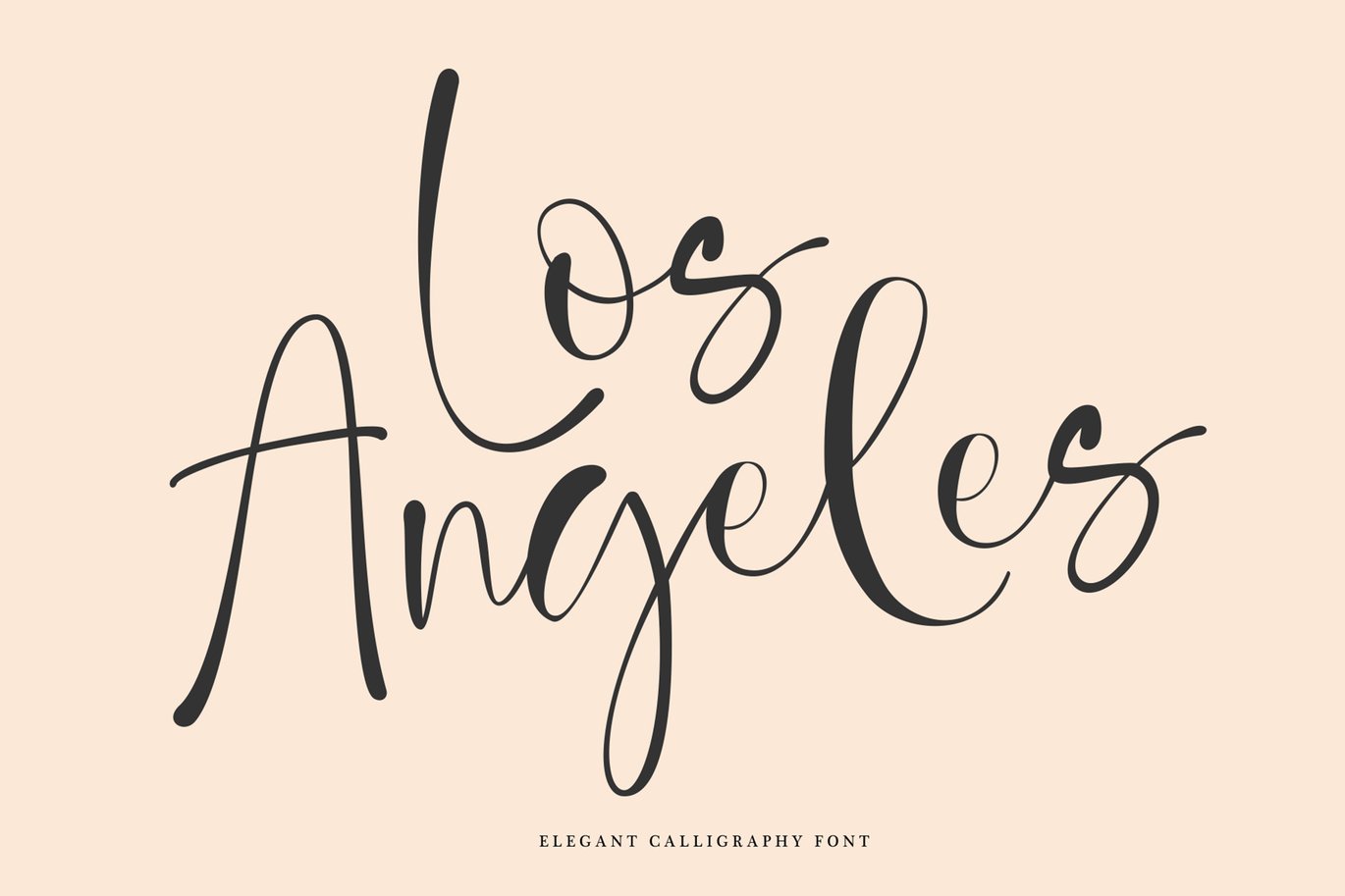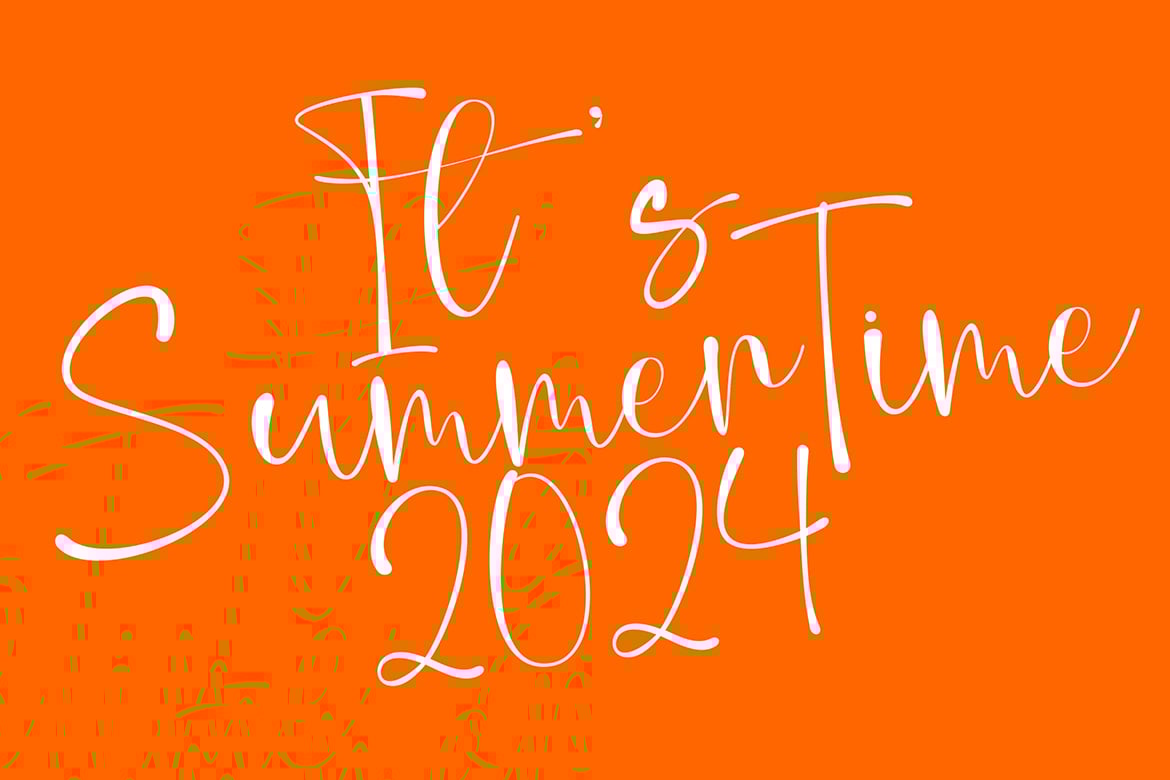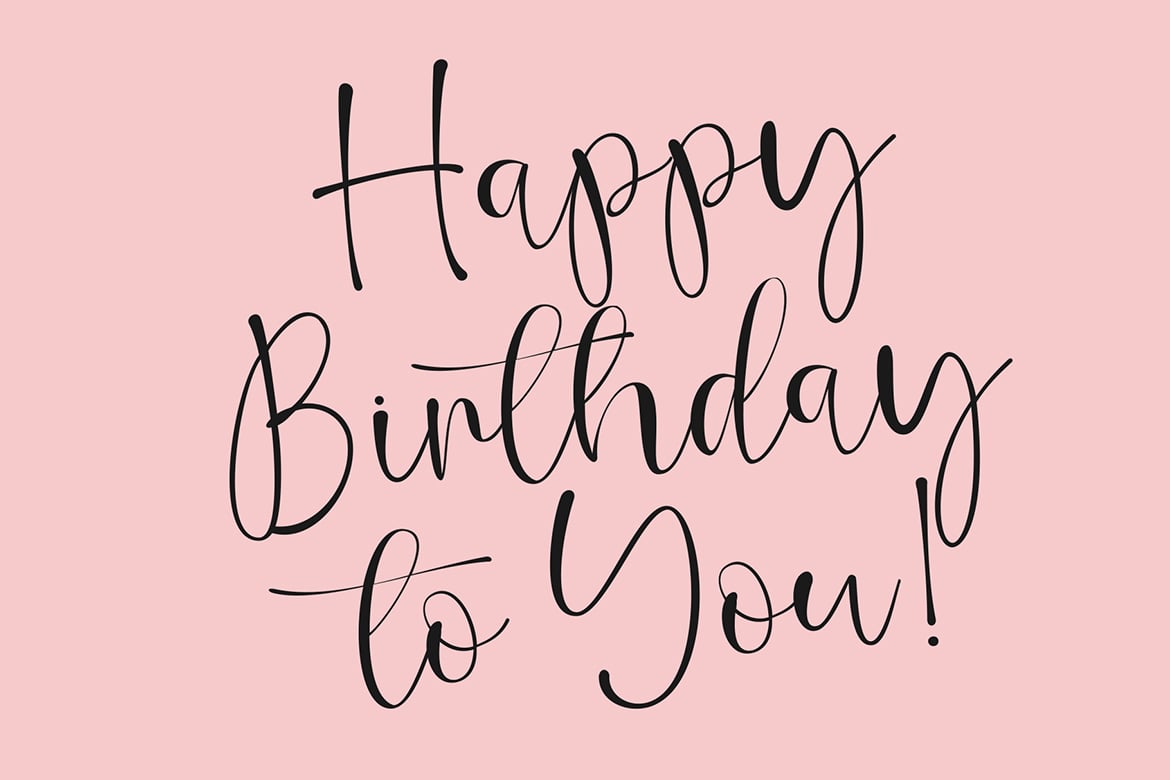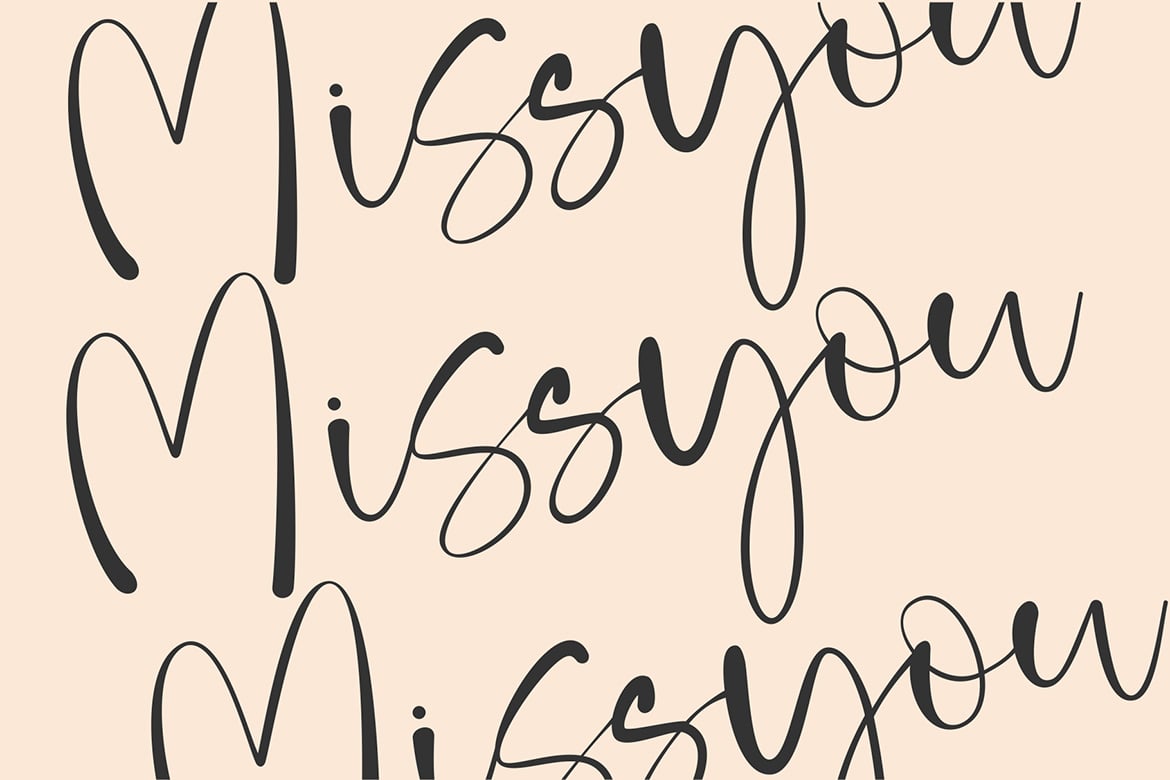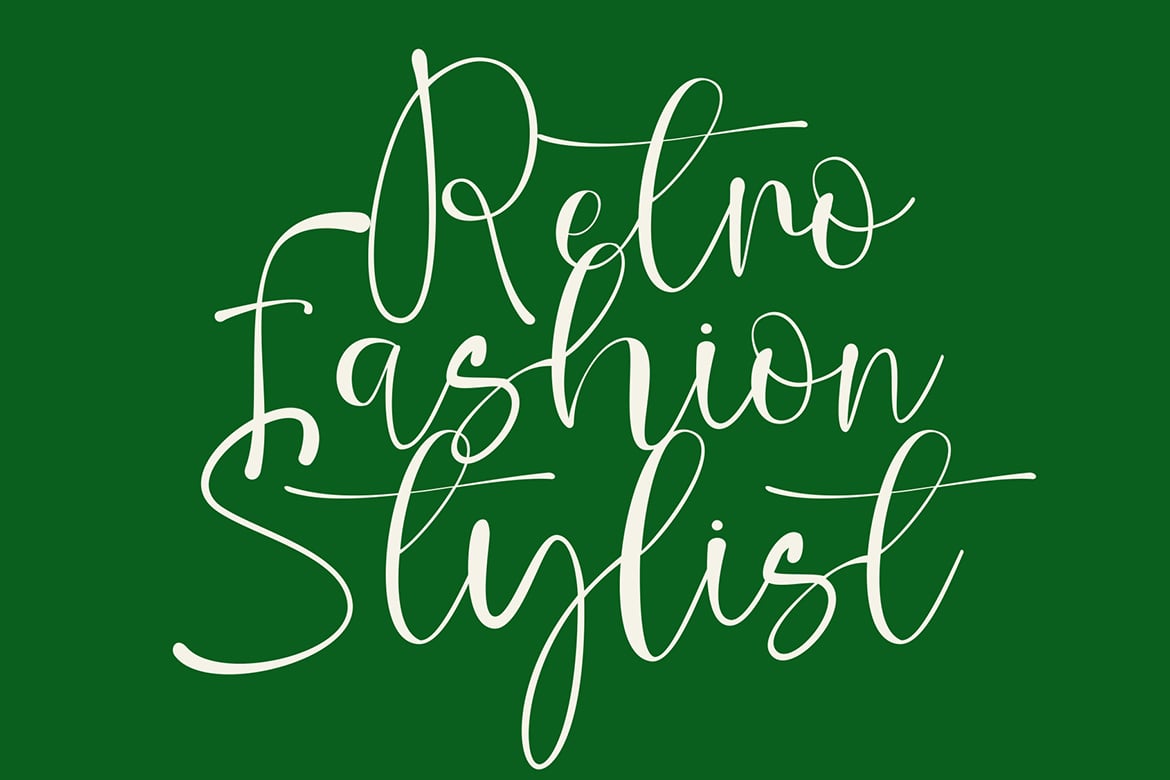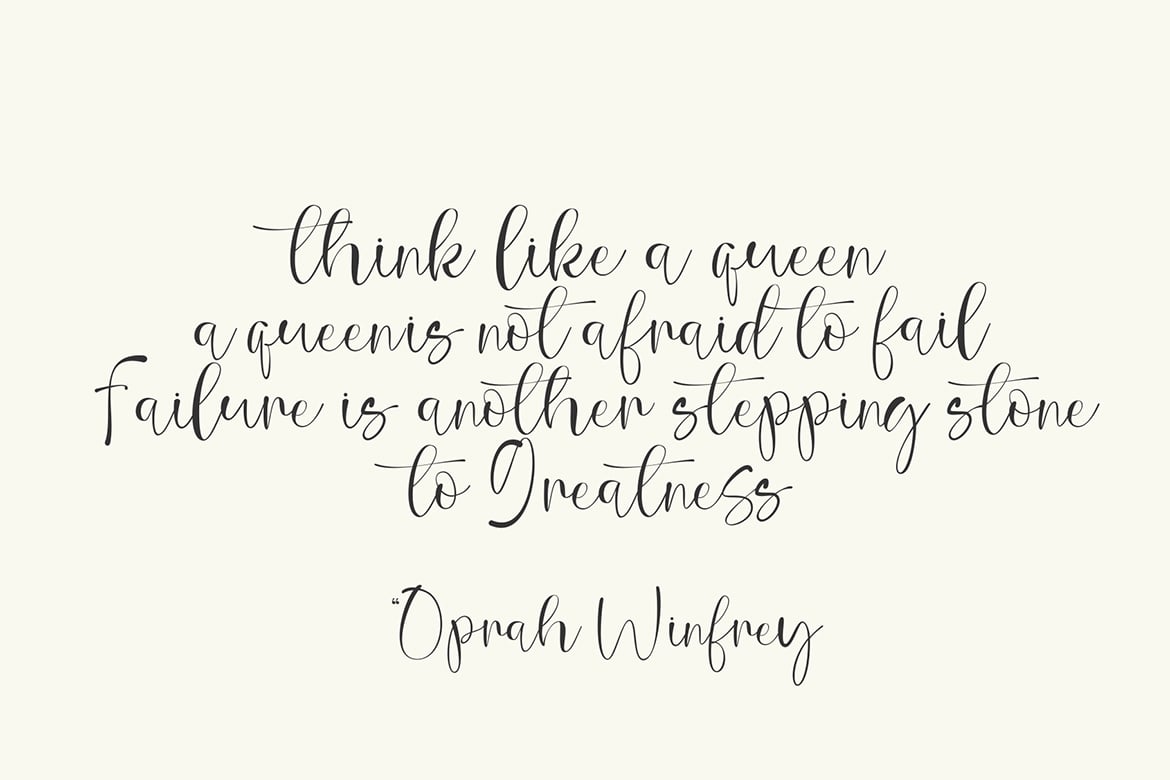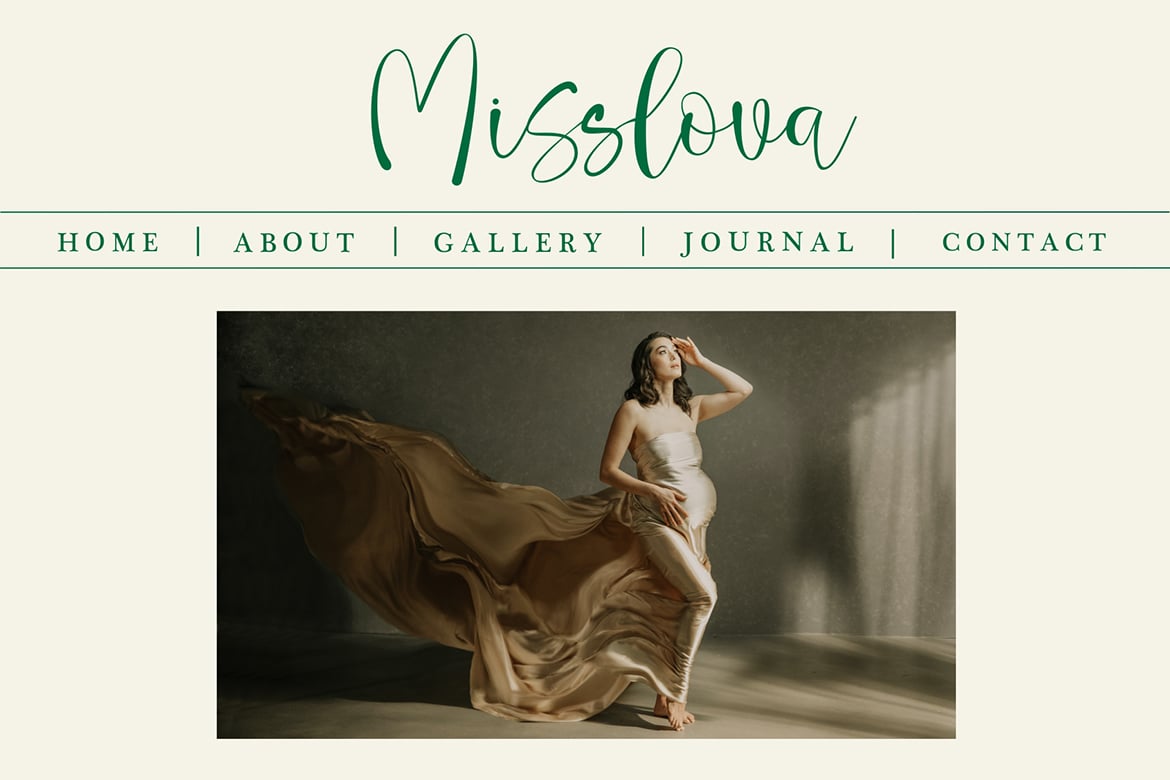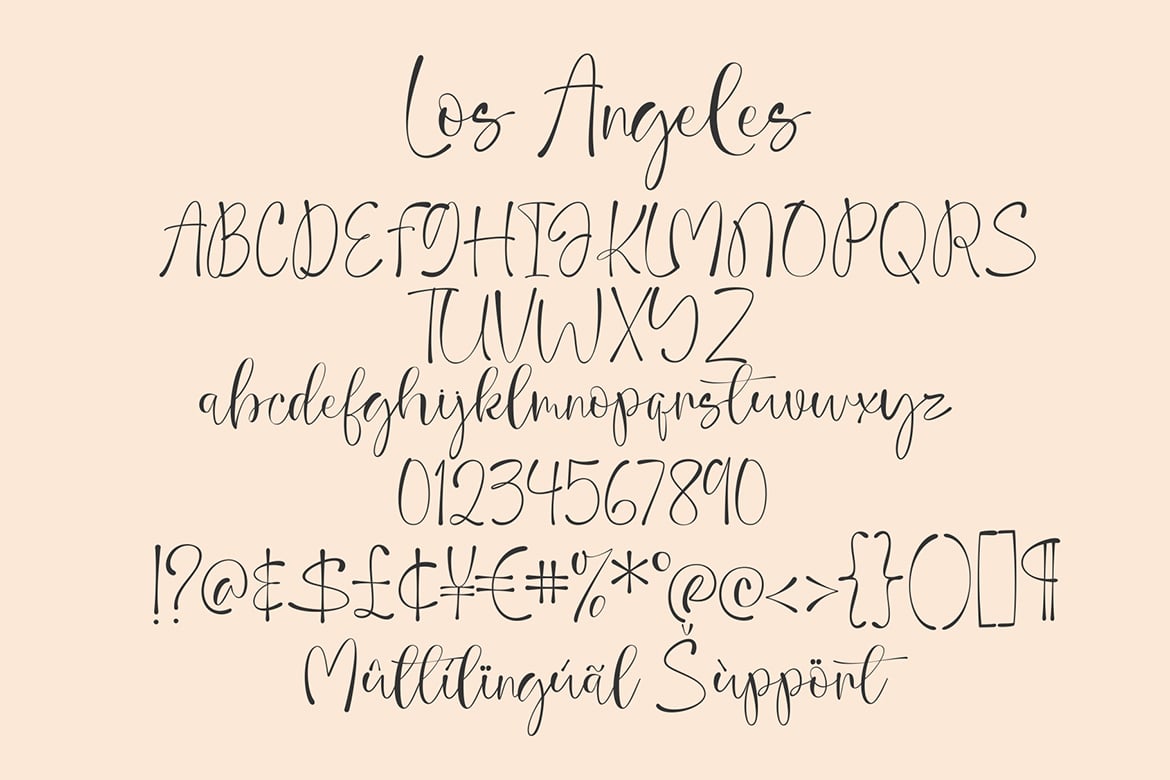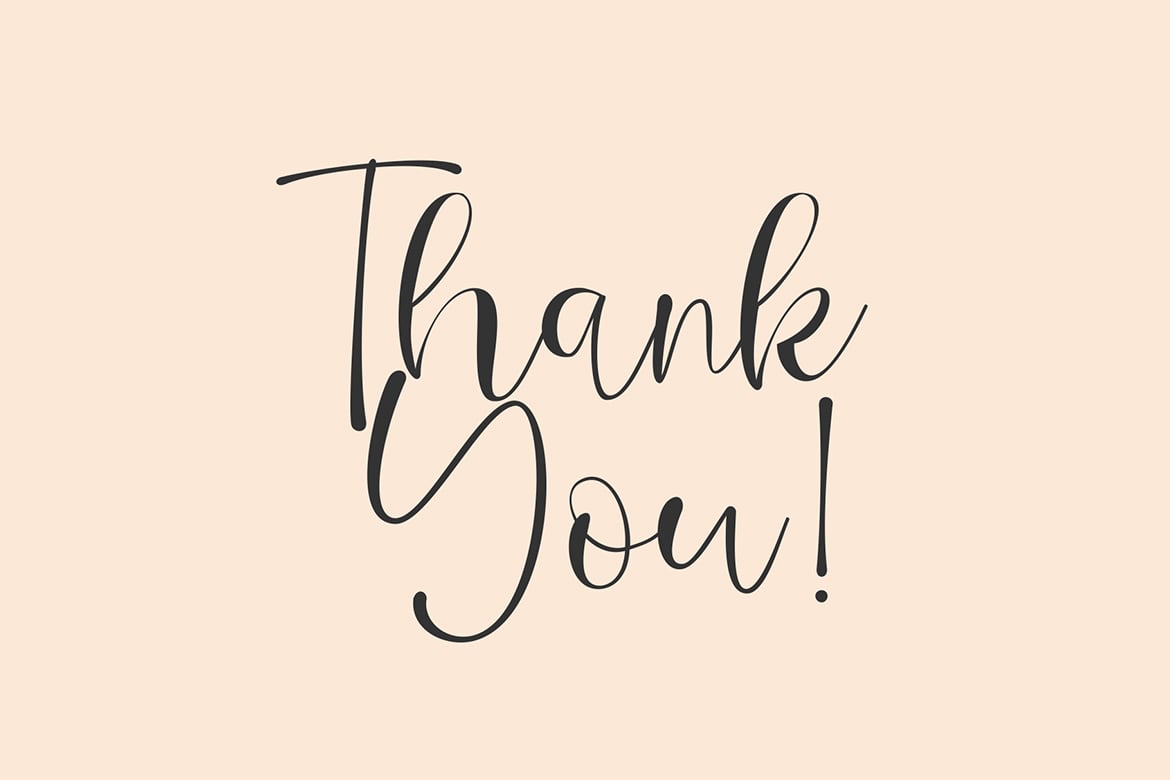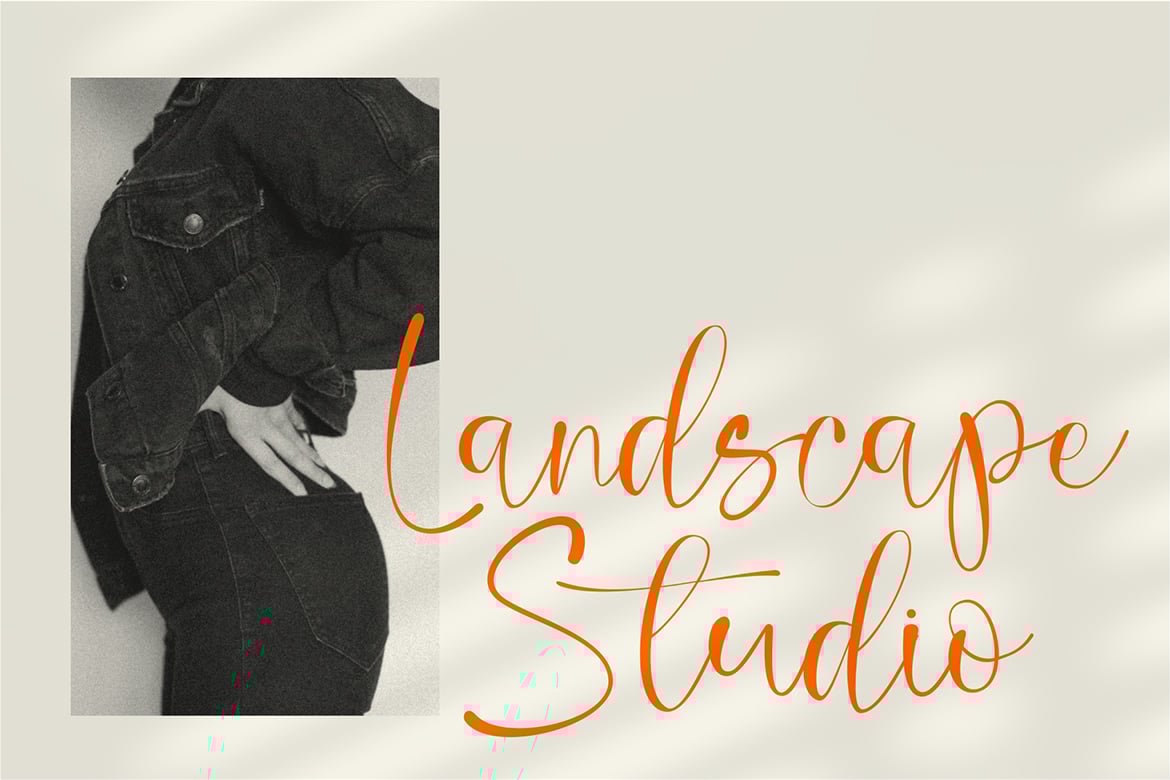
Los Angeles Font
Los Angeles is modern elegant script font, With modern script style this font will perfect for branding, wedding invitations, photography, Neon Sign, bloggers, logos, greeting cards, Logo, Quotes and more.
- numeric & Multilingual support
- Foreign languages support: ÀÁÂÃÄÅÆÇÈÉÊËÌÍÎÏÐÑÒÓÔÕÖØÙÚÛÜÝßàáâãäåæçèéêëìíîïðñòóôõöøù
úûüýÿ